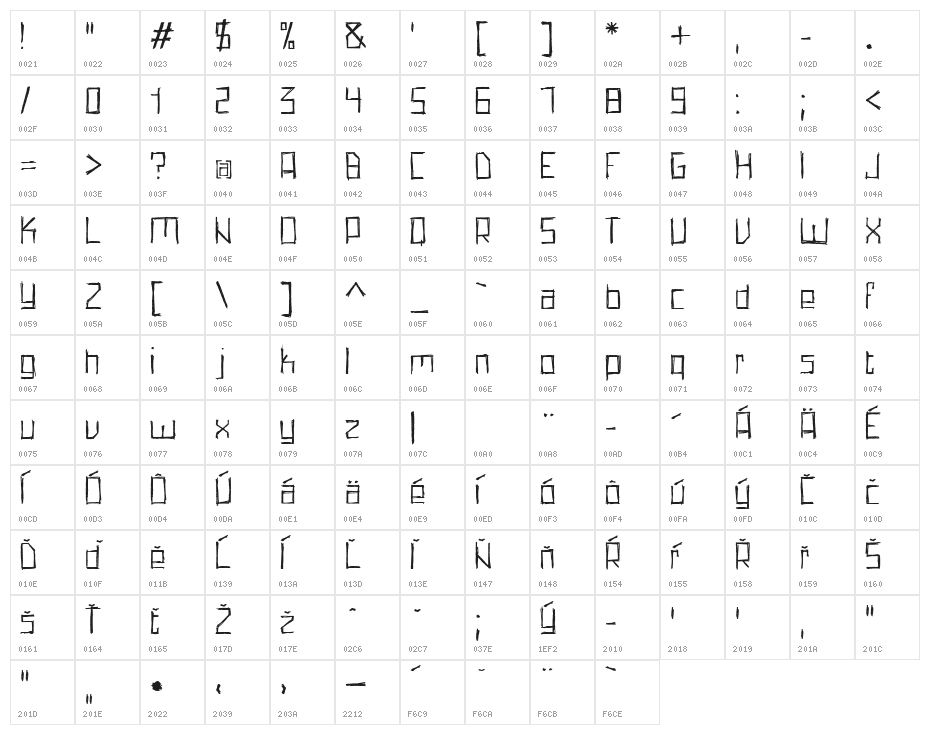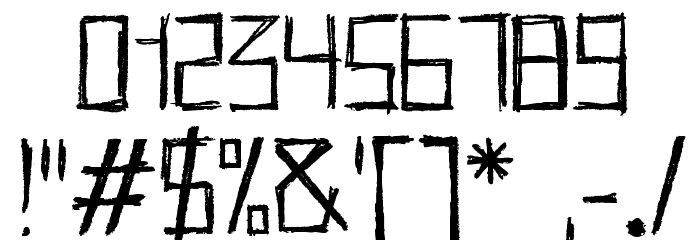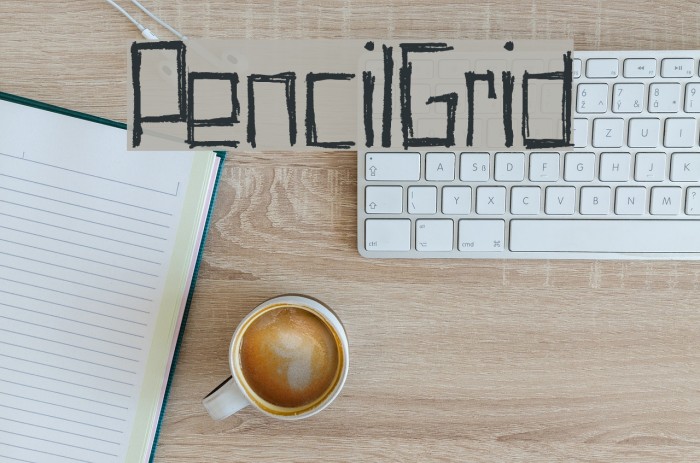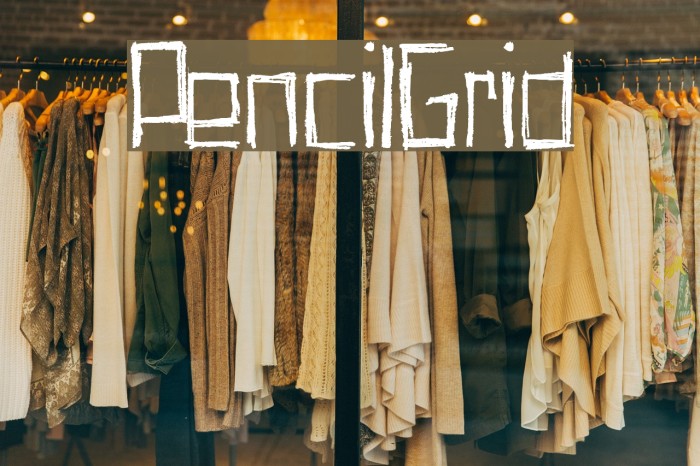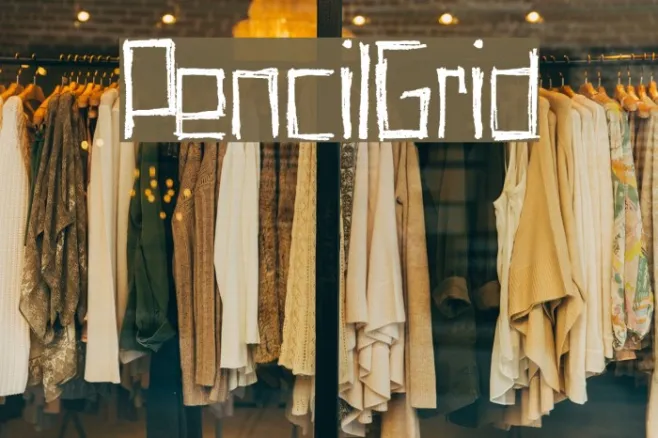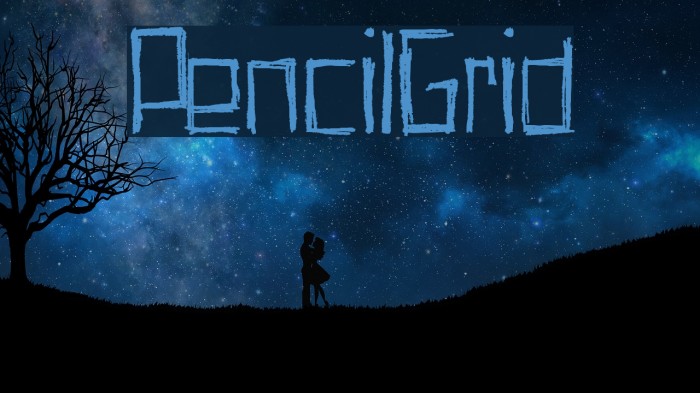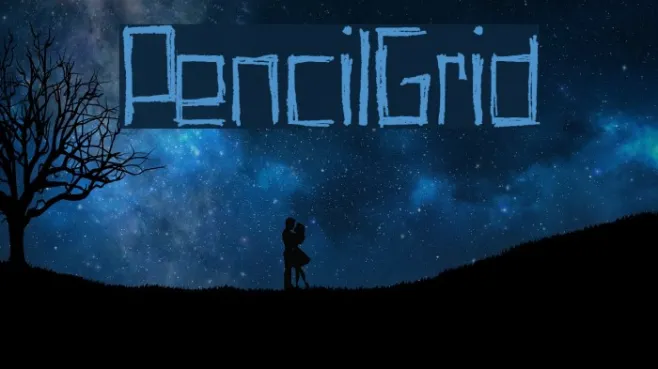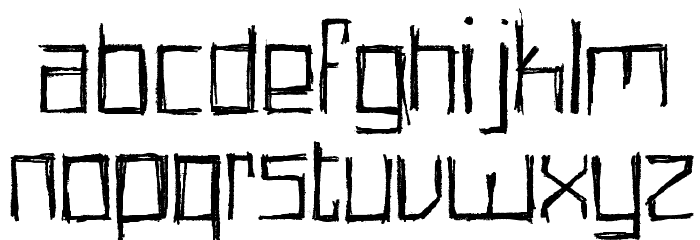
PencilGrid Font
PencilGrid Description
This font features a hand-drawn, sketch-like appearance reminiscent of pencil strokes on paper. The characters are formed with uneven, jagged lines that give a raw and artistic feel. Each letter and number has a unique, slightly irregular shape, adding to the handcrafted aesthetic. The uppercase and lowercase letters maintain a consistent style, while the numerals and special characters complement the overall design. This font captures a sense of creativity and spontaneity, making it ideal for projects that require a personal touch.
| Overall Style | Artistic |
| Proposed Projects | Ideal for artistic projects, children's books, creative posters, and DIY-themed designs. |